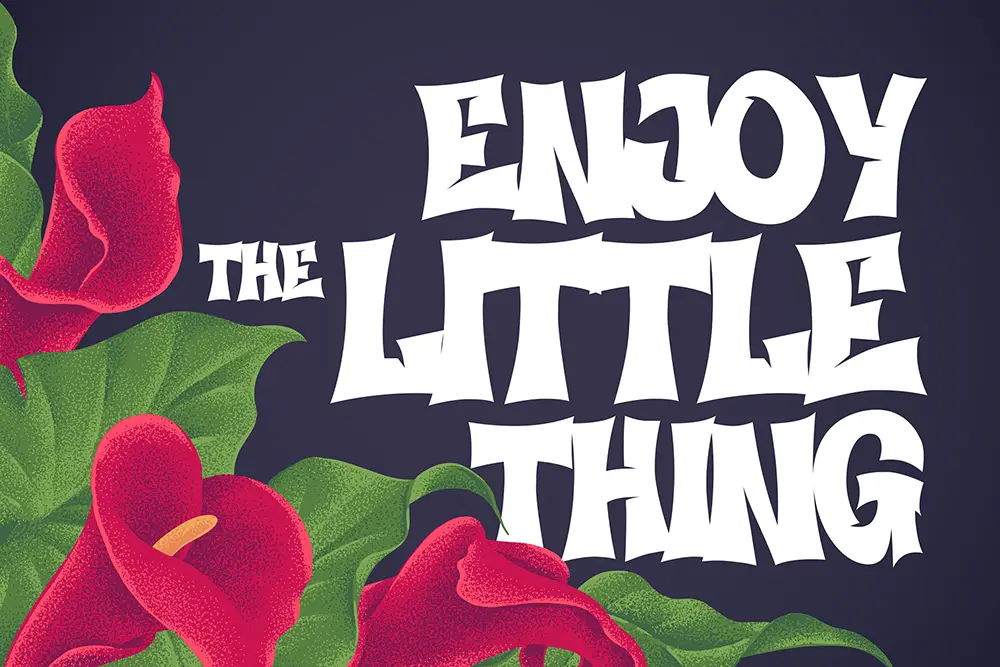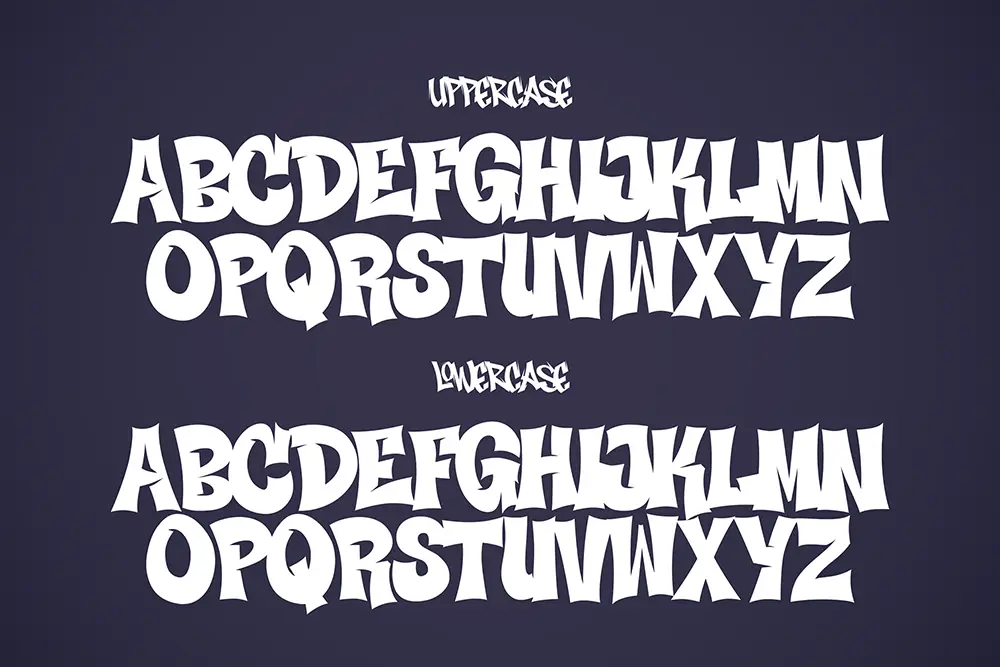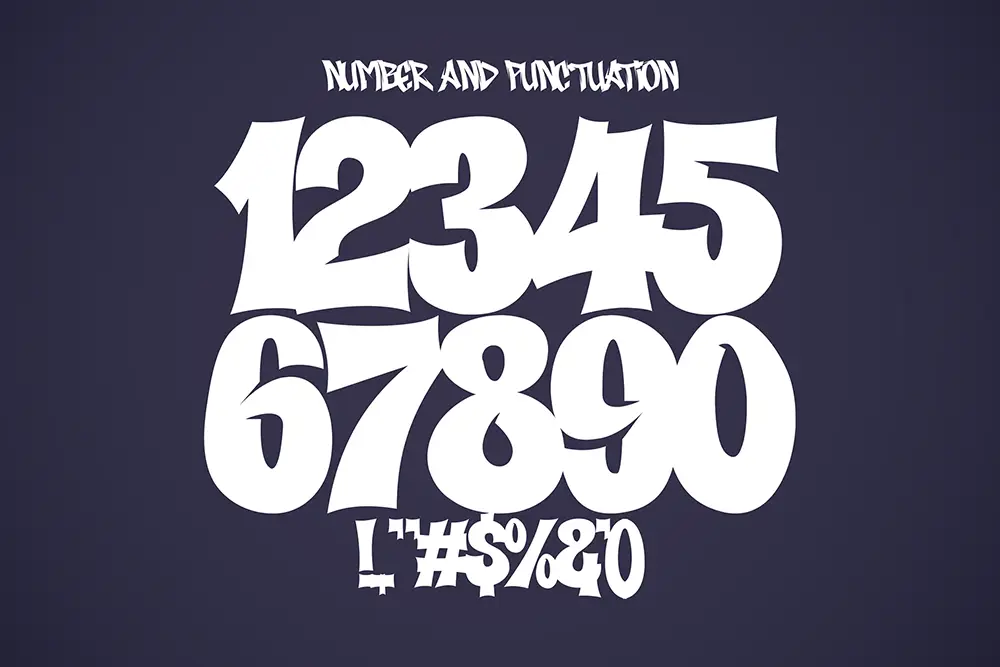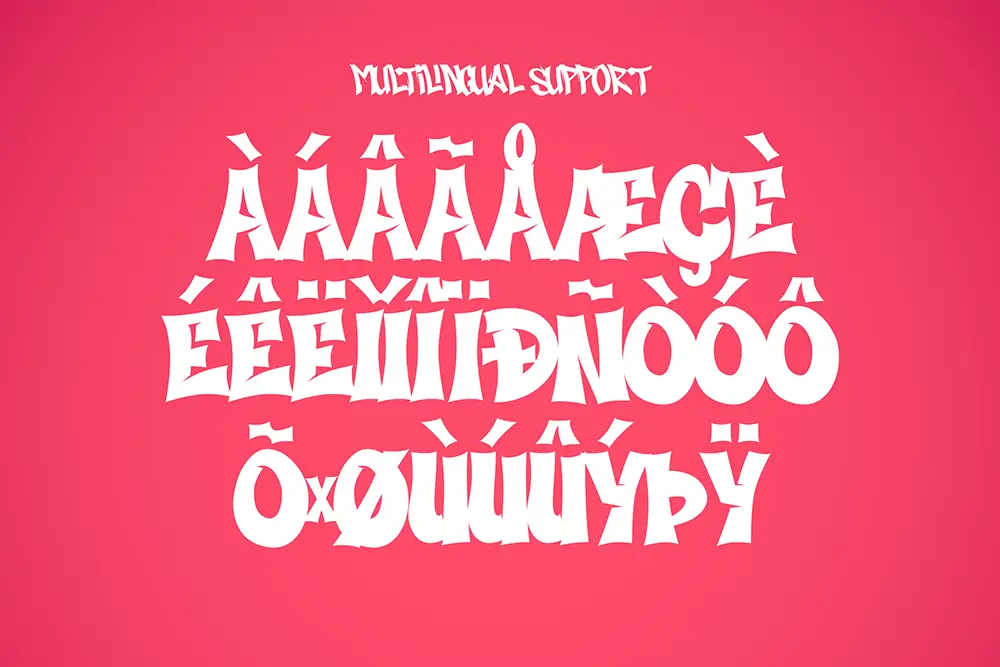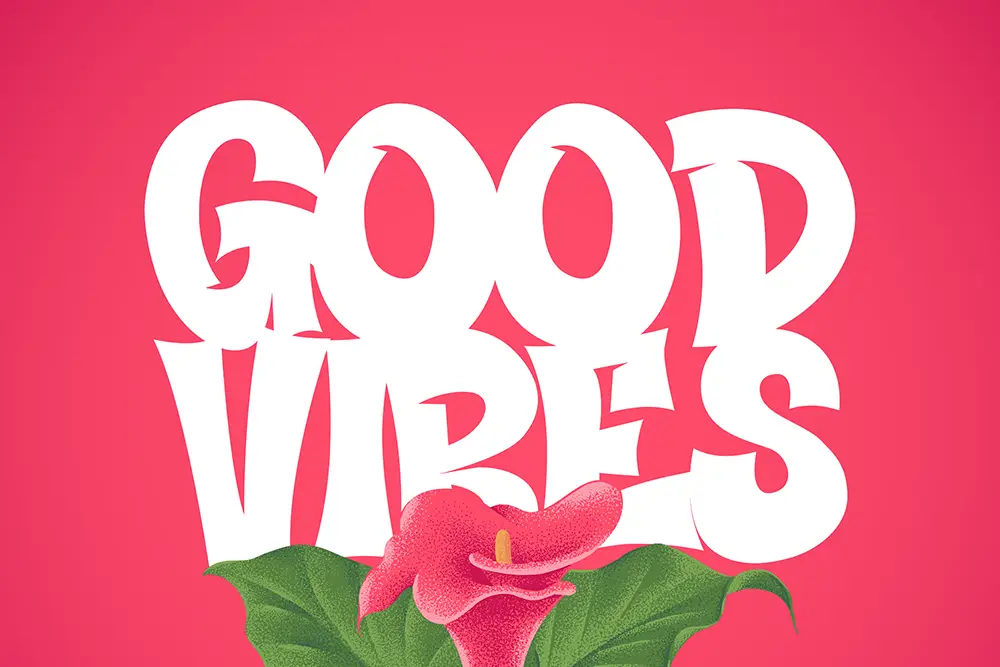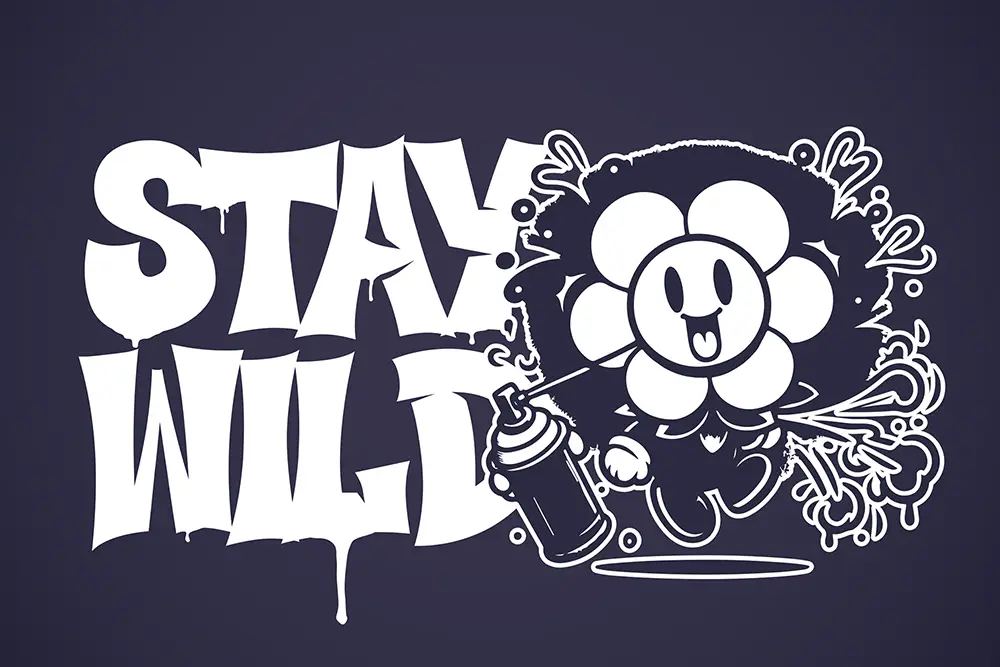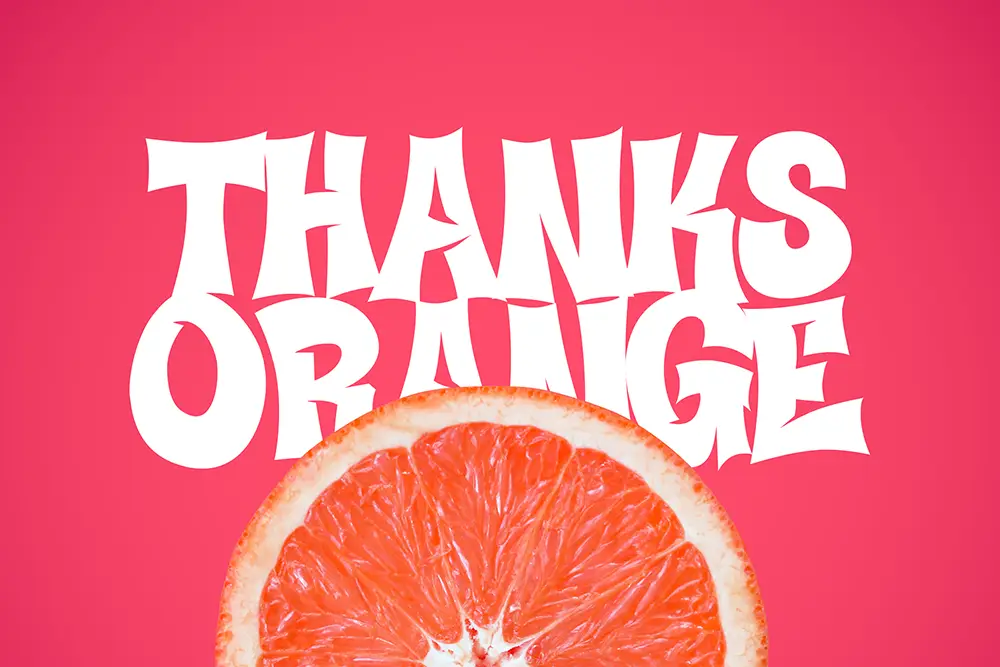
Comic Graffiti Font That Explodes with Style and Attitude
If you’re looking for a comic graffiti font that radiates high-energy and bold attitude, Voids Bloom is your ultimate pick. This font merges playful comic charm with urban graffiti edge — perfect for designers who dare to stand out. Designed with all uppercase and lowercase characters, including numbers and symbols, Voids Bloom adds dynamic motion and raw expression to your artwork.
Every stroke in this comic graffiti font screams character. Whether you’re designing posters, YouTube thumbnails, product labels, or street art-inspired branding, Voids Bloom offers a hand-drawn comic feel that feels both authentic and spontaneous. And yes — it supports multiple languages, so you can go global without losing style.
Key Features of Voids Bloom
- Uppercase & Lowercase Comic Characters
- Numbers and Symbols Included
- Multilingual Support for Global Use
- Bold, Playful Graffiti Look
- Optimized for Display, Posters, and Digital Media
- Handcrafted to feel spontaneous and energetic
Why Designers Love Voids Bloom
Designers around the world love Voids Bloom for its playful irreverence and high-energy attitude. The comic-style strokes bring life to static words, while the graffiti twist adds rebellion and flair. Its balance between readability and personality makes it ideal for:
- YouTube Banners & Thumbnails
- Comic Book Titles
- Urban Posters
- Music Festival Branding
- Skater and Gaming Promotions
- Event Flyers and Stickers
- Kid-Friendly Merchandise
With its bold comic graffiti style, Voids Bloom helps your design shout without saying a word.
Voids Bloom is a playful graffiti font designed to stand out in crowded visual environments. This display-ready comic font combines strong linework with a quirky attitude, making it a go-to option for urban, digital, and experimental designers. Whether you’re designing for a streetwear brand or crafting an eye-popping comic strip, this font adds raw, energetic flair.
Comic graffiti fonts like Voids Bloom are perfect for YouTube creators, podcast designers, and poster artists. It pairs incredibly well with minimalist sans-serif fonts for contrast or other expressive typefaces for high-impact messaging. With multilingual support and complete glyphs, it’s built for scale — from indie creators to major agencies.
Voids Bloom delivers dynamic readability, especially for bold headlines and expressive short copy. Its organic, hand-drawn quality gives your design a human touch — perfect for those tired of sterile digital fonts. From web headers to mobile UI splash screens, its street-style energy breaks away from monotony.
Voids Bloom isn’t just a font — it’s a visual shout. For designers who want to speak loud and proud in the language of fun, chaos, and energy, this comic graffiti font brings everything you need to make your work stand out. With full multilingual support, stylistic versatility, and an irresistible comic energy, Voids Bloom is a weapon of mass creativity. Add it to your collection and watch your words bloom with power.